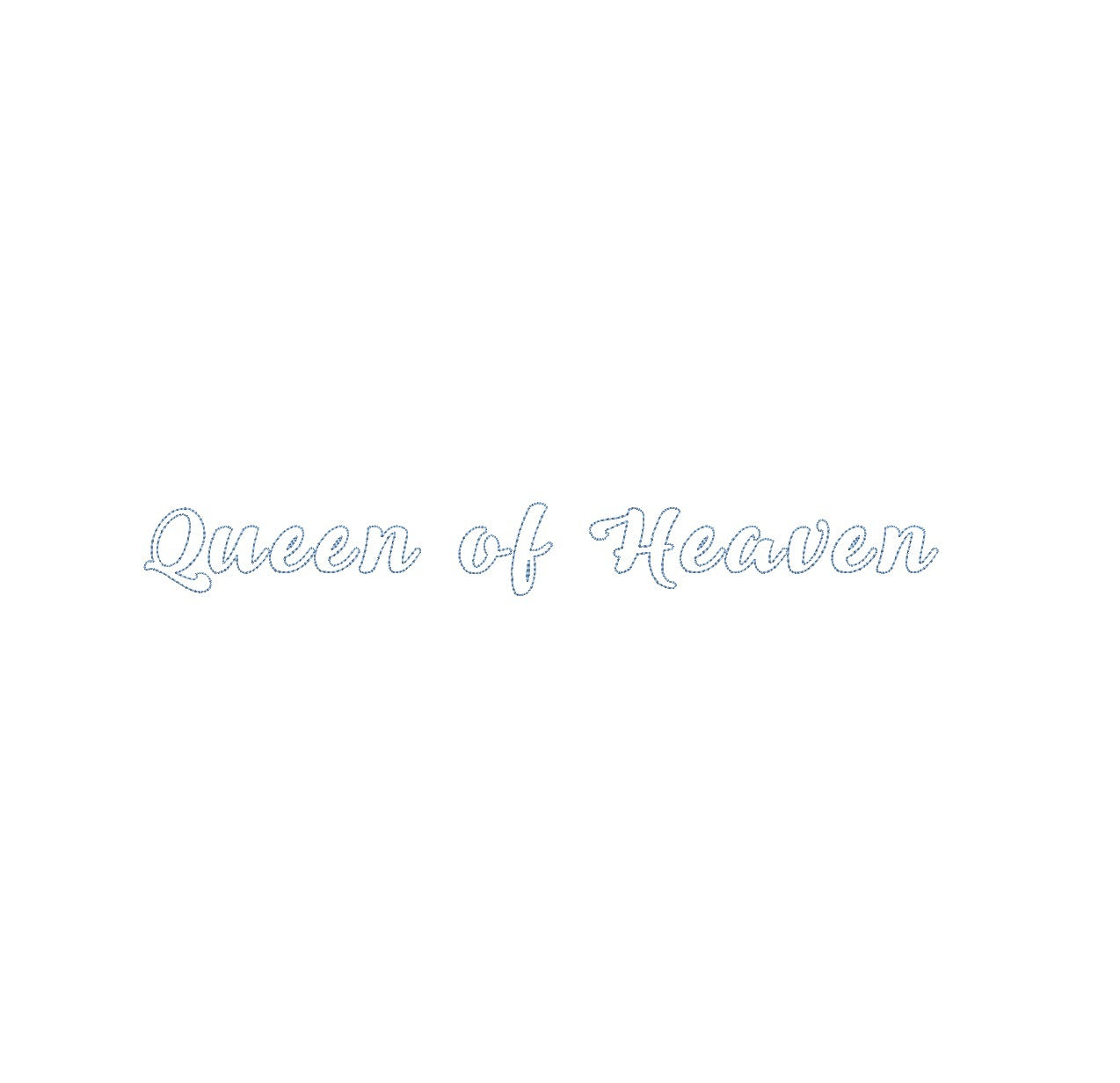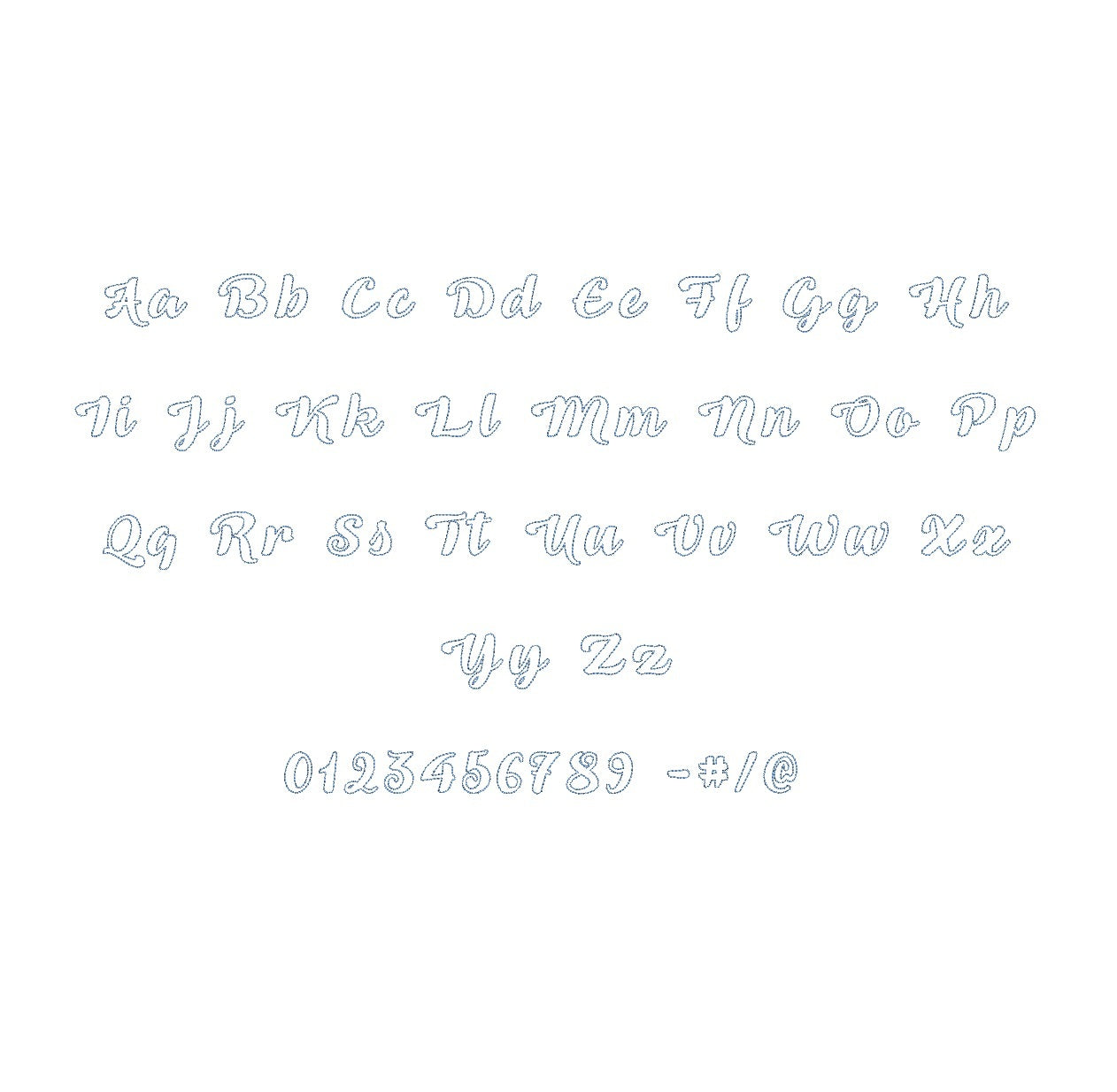
Elevate your embroidery with the Queen of Heaven Bean Outline ESA font, compatible with Wilcom Studio e4.5.6 and Hatch 3 versions and up. This font seamlessly blends divine elegance and precision, infusing your designs with a unique aesthetic, perfect for heavenly monograms and embellishments. Experience seamless compatibility for exceptional results, and unleash a new level of stitching finesse. Transform your creations into embroidery masterpieces that radiate celestial charm. Elevate your projects with the Queen of Heaven Bean Outline ESA font and let your embroidery shine with heavenly beauty.